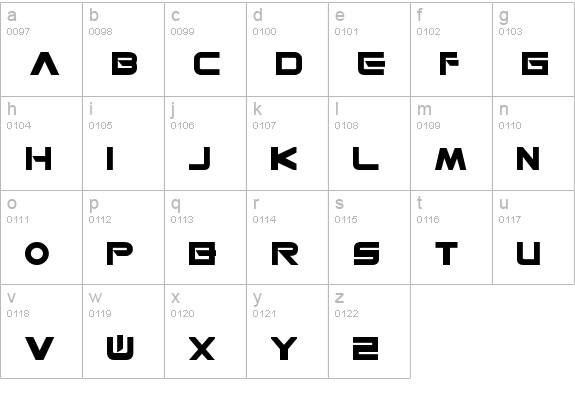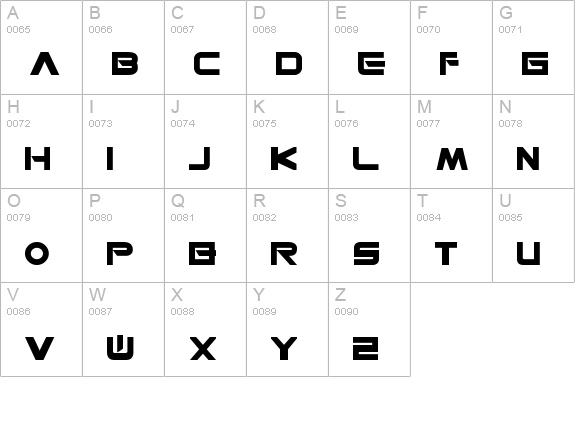
Space Station 77 Font Details
Introducing the captivating Space Station 77 font, a celestial creation that will transport your designs to the outer reaches of imagination. Inspired by the futuristic aesthetics of space travel, this font embodies the essence of cosmic exploration with its sleek lines and bold curves. Drawing inspiration from the iconic space stations that have fascinated humanity for decades, Space Station 77 effortlessly captures the spirit of interstellar adventure. Whether you're designing a sci-fi movie poster, a futuristic logo, or an otherworldly website, this font will add an instant touch of cosmic flair to your projects. But what sets Space Station 77 apart is not just its stunning design – it's also the fact that it is freely available to download at FontsMarket.com. Yes, you heard it right! This extraordinary font is accessible to all, allowing creators from all walks of life to experience the wonders of the universe through their designs. With its wide range of characters, including uppercase letters, lowercase letters, numbers, and punctuation marks, Space Station 77 offers endless possibilities for creative expression. Its versatility ensures that it can be used for a multitude of design projects, from futuristic branding to captivating headlines. And the best part? Space Station 77 doesn't just look out of this world; it also performs flawlessly on any platform or device. Whether your audience is exploring your designs on a computer screen or a mobile device, this font will maintain its captivating allure, ensuring a seamless experience for all. So, let your creativity take flight and explore the depths of the universe with Space Station 77. Download this extraordinary font for free at FontsMarket.com and embark on a design journey that will transport your audience to new dimensions of awe and wonder.